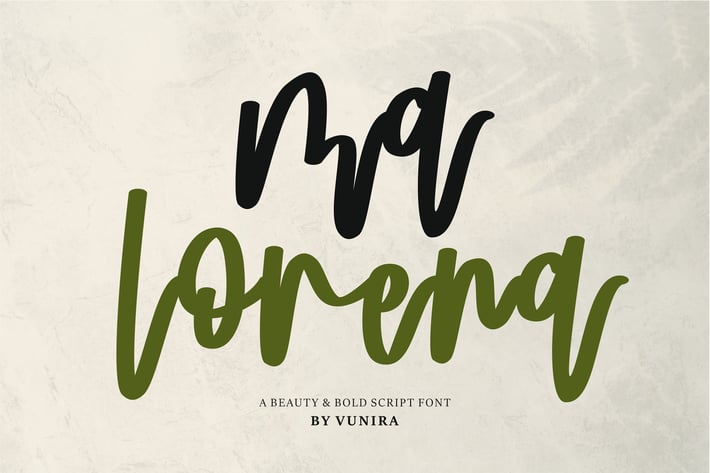
Ma Lorena | A Beauty & Bold Script Font
Ma Lorena | A Beauty & Bold Script Font with a calligraphy style, So beautiful on invitation like greeting cards, branding materials, business cards, quotes, posters, and more!